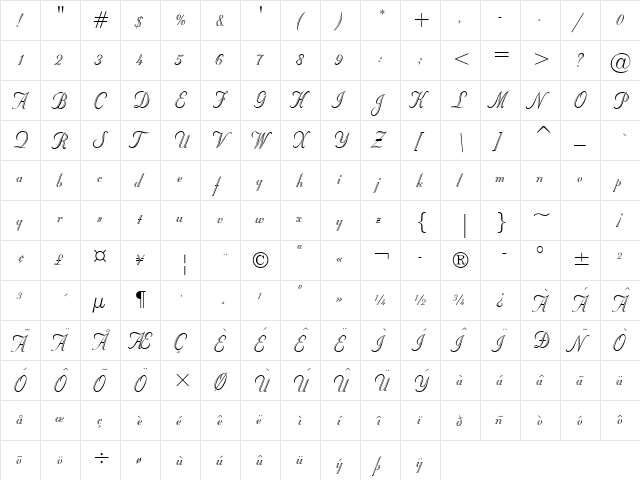
Studio Normal
Design Context for Studio Typeface
Studio is a composed and adaptable typeface that performs quietly and consistently across a wide range of design contexts.